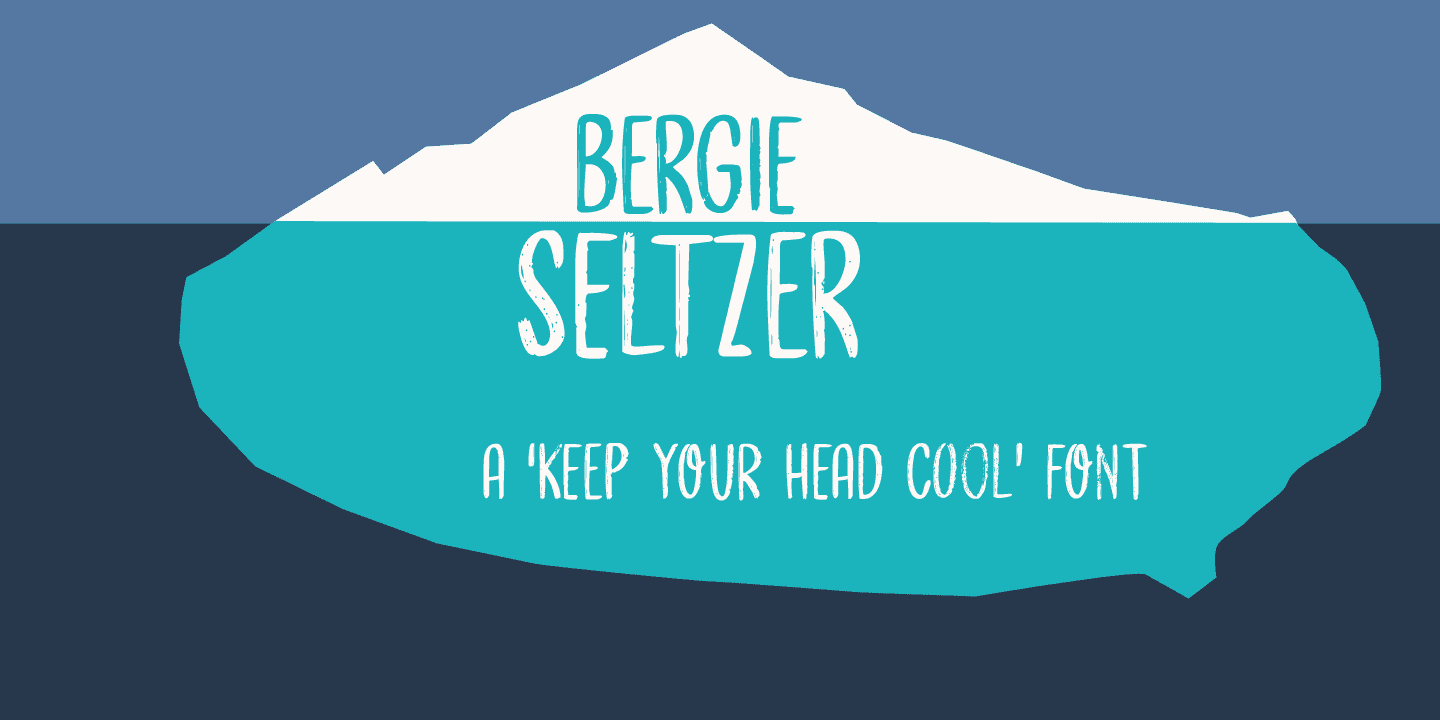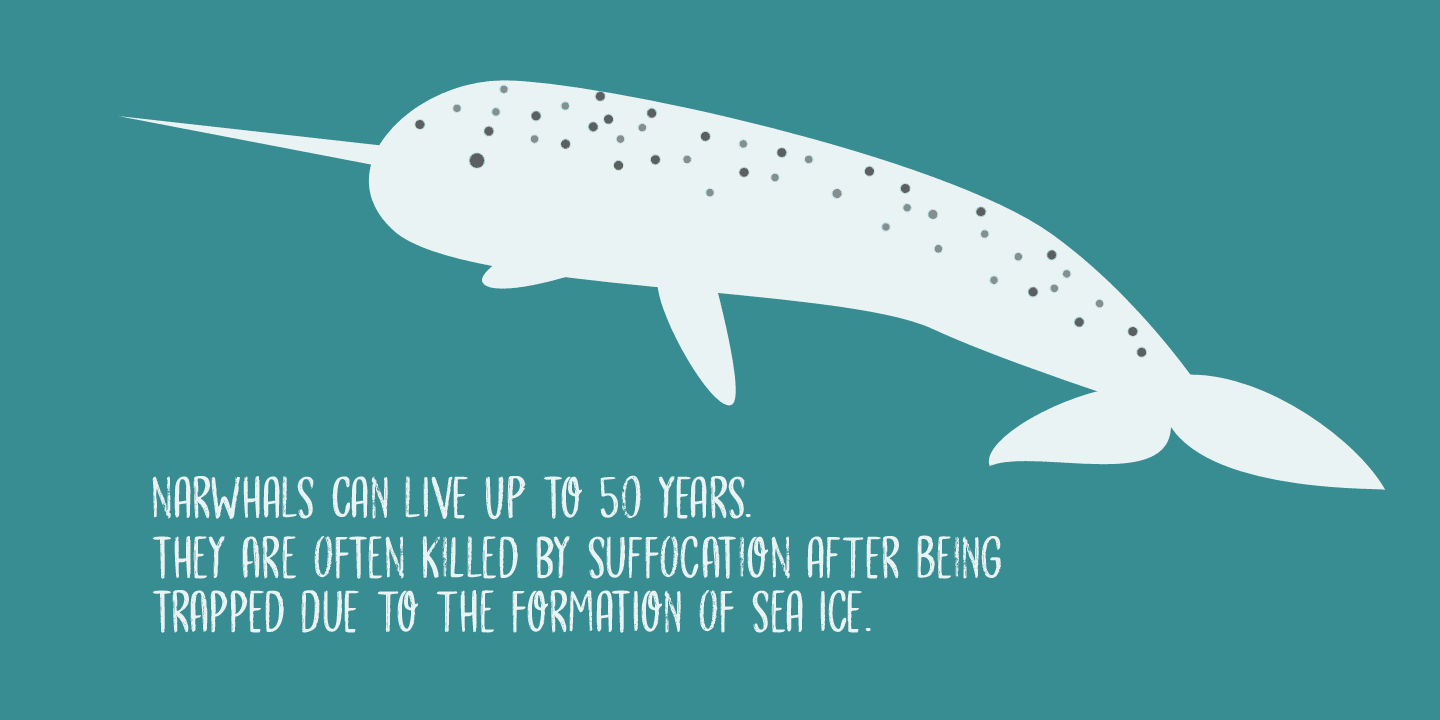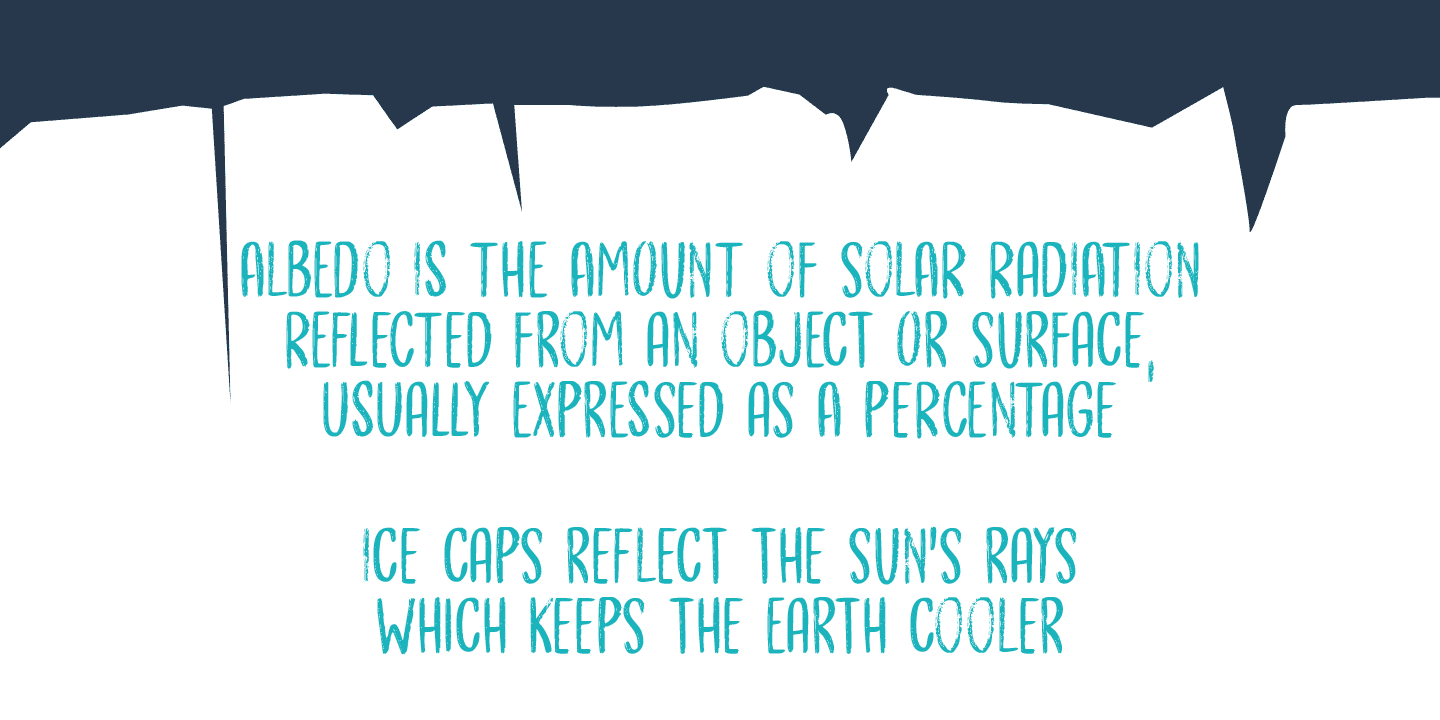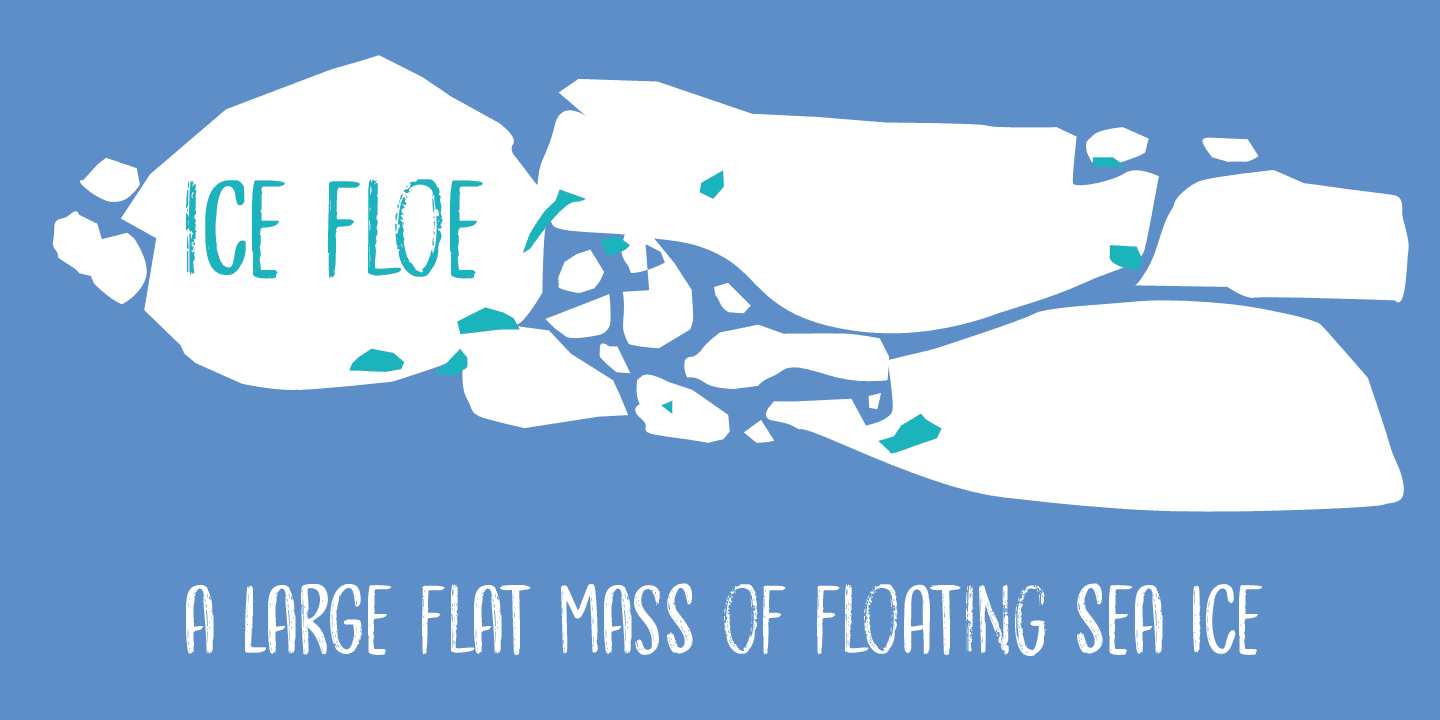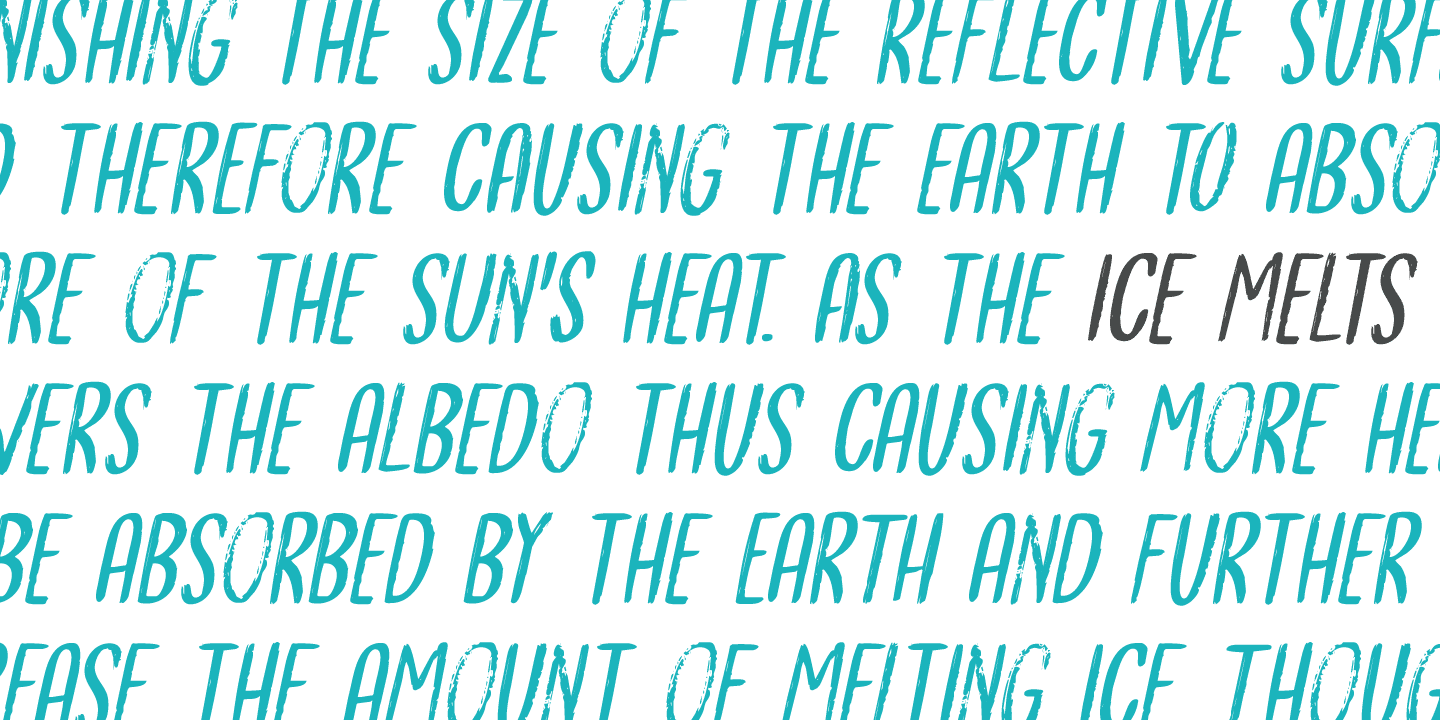
Bergie Seltzer Family (2 fonts)
Bergie Seltzer font is a cool, all caps display font. It has a slightly eroded look (like a melting iceberg if you will) and a laid back attitude. Use it for your summer magazines, your ultra-cool websites and your bottles of fizzy drink!
Just don’t melt the polar cap!